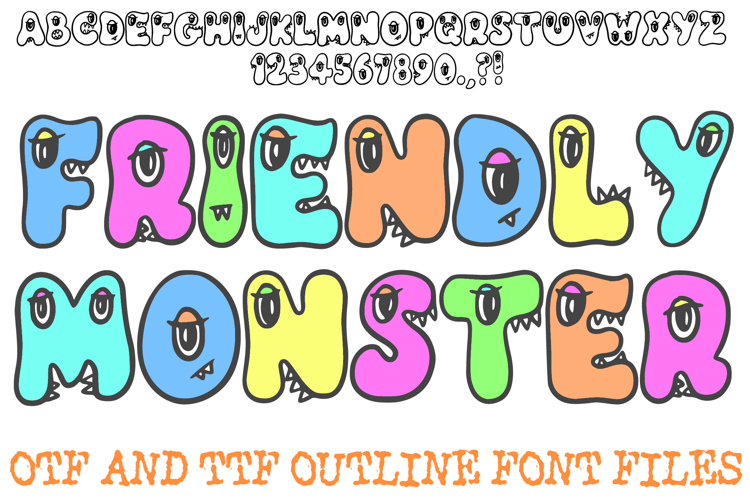
Bring your projects to life with the Friendly Monster Cartoon Font! This playful display alphabet features soft, puffy bubble letters that are each uniquely "alive," decorated with quirky googly eyes, mischievous fangs, and sharp little teeth. It is the perfect creative choice for Halloween party invitations, children’s apparel, whimsical stickers, and engaging classroom materials.
Every character acts as its own little creature, making your text feel like a group of friendly beasts. Whether you are designing a "spooky but sweet" birthday banner, fun nursery wall art, or school worksheets, this font adds a huge dose of personality and humor to every word.
Why You’ll Love These Creatures:
Whimsical Monster Features: Every letter includes hand-drawn eyes or fangs for an instant character look.
Bold Bubble Silhouette: The thick, rounded outlines ensure high visibility and a friendly feel.
Versatile Spooky Style: Perfectly balances "scary" and "cute," making it safe and fun for all ages.